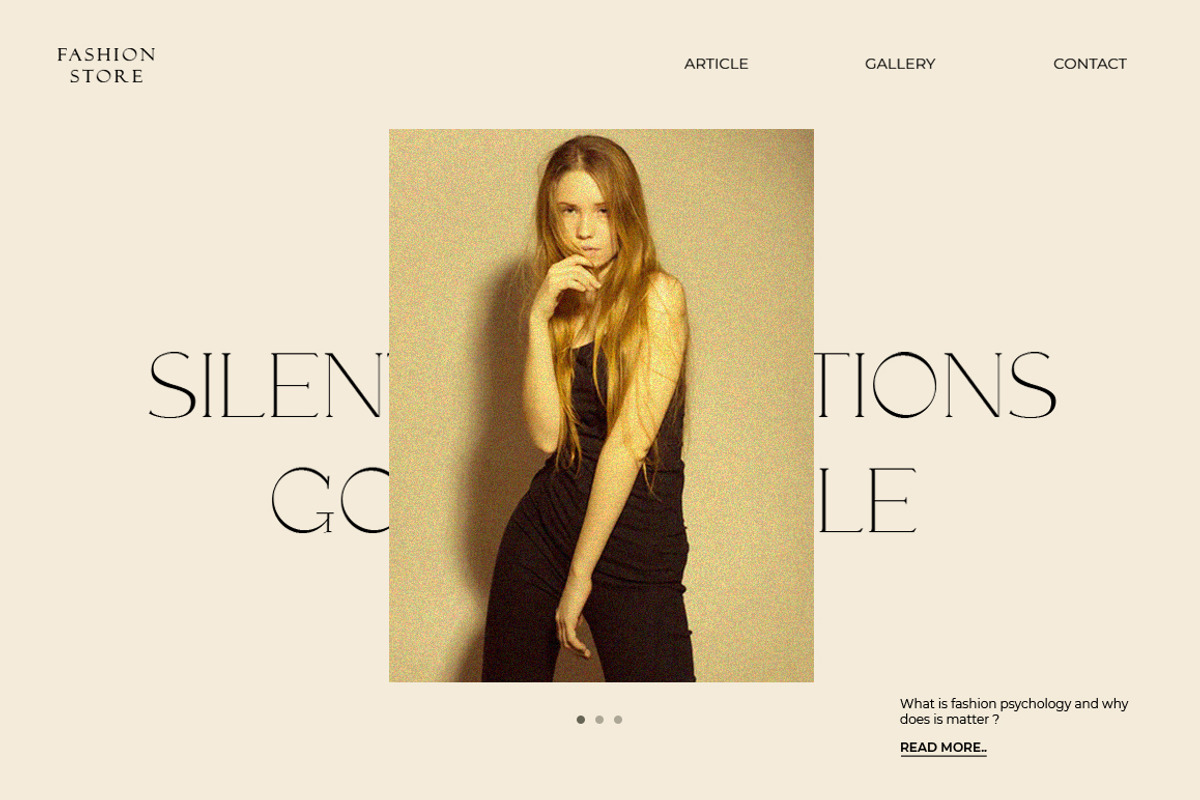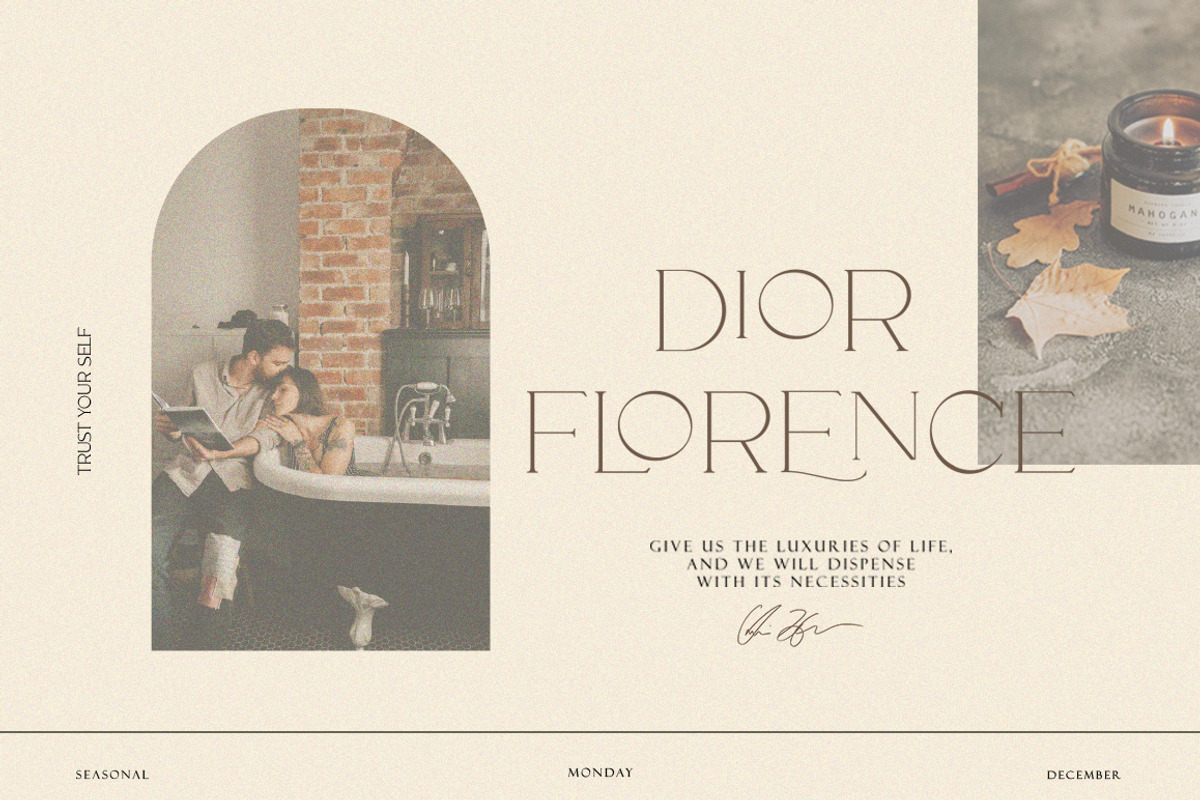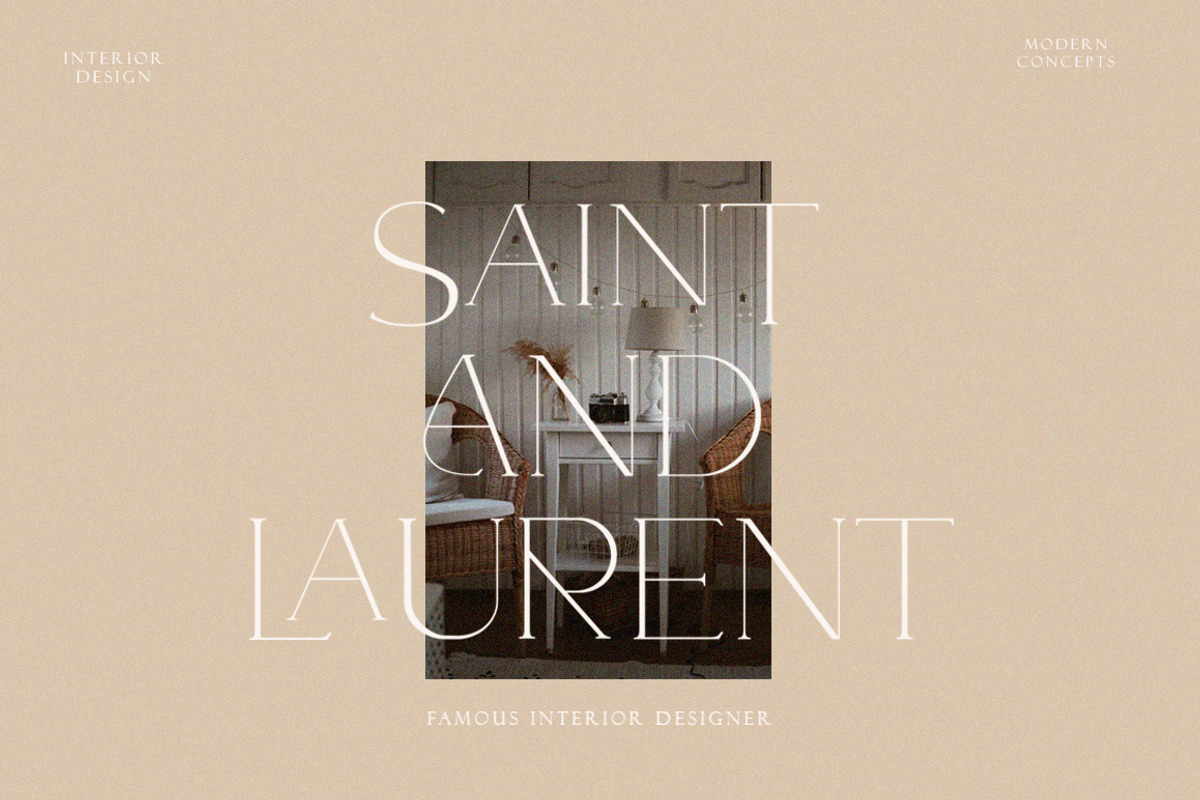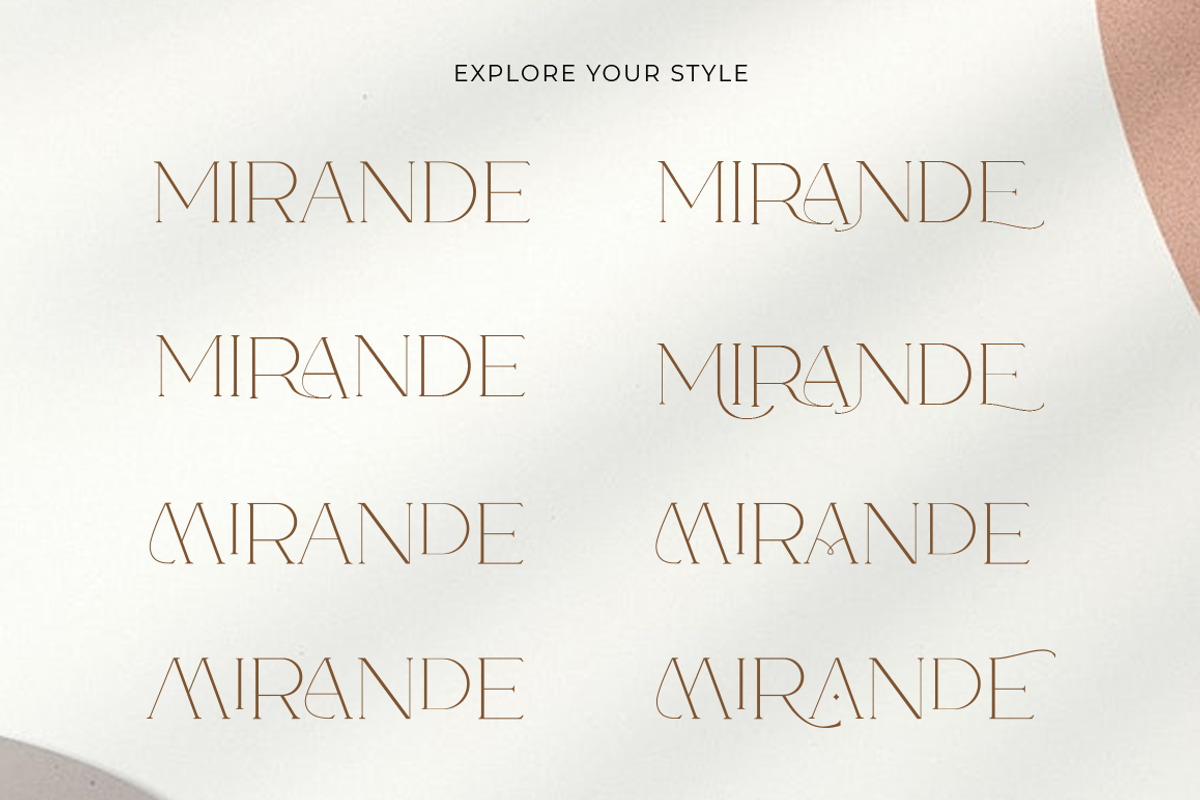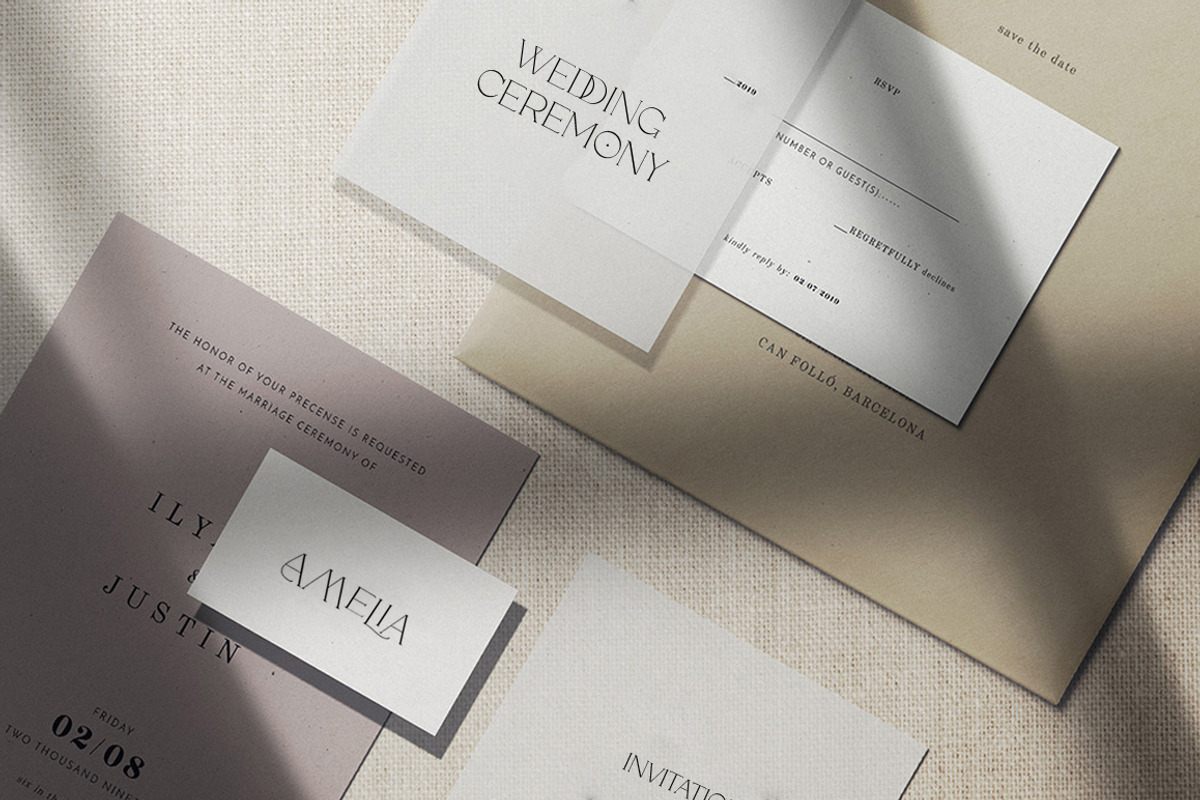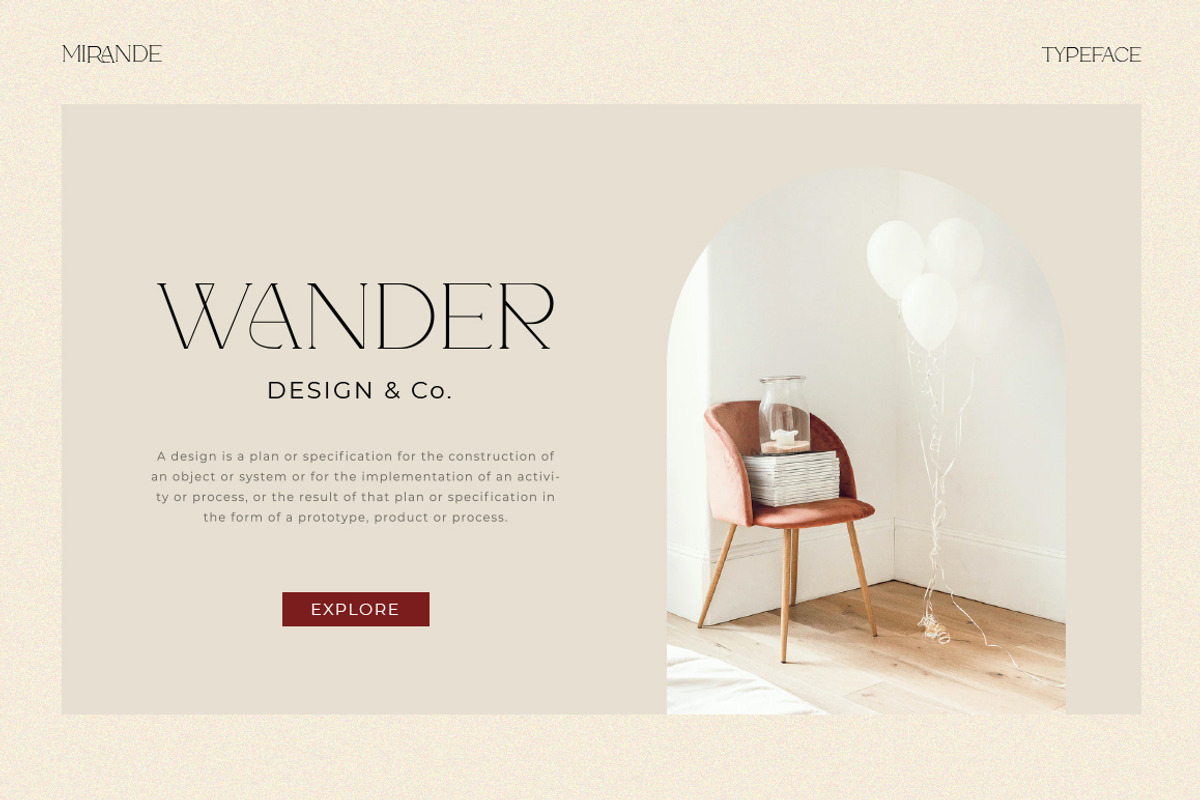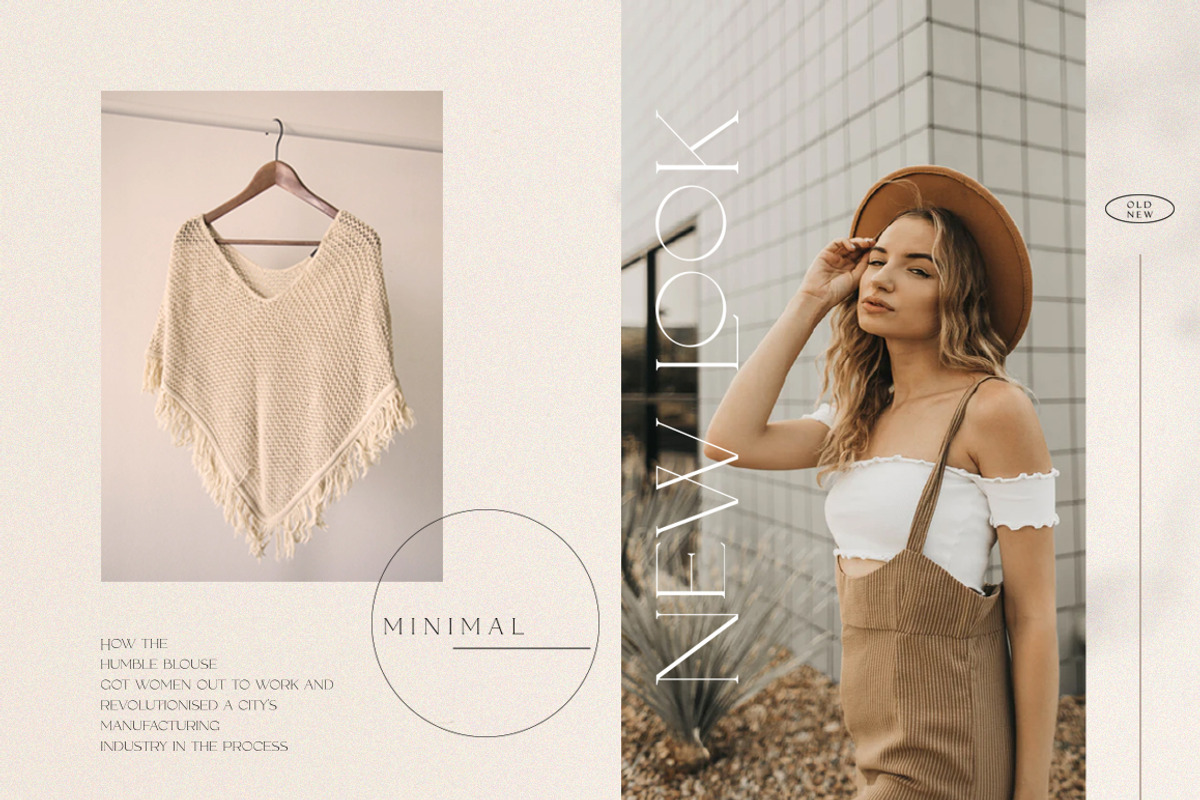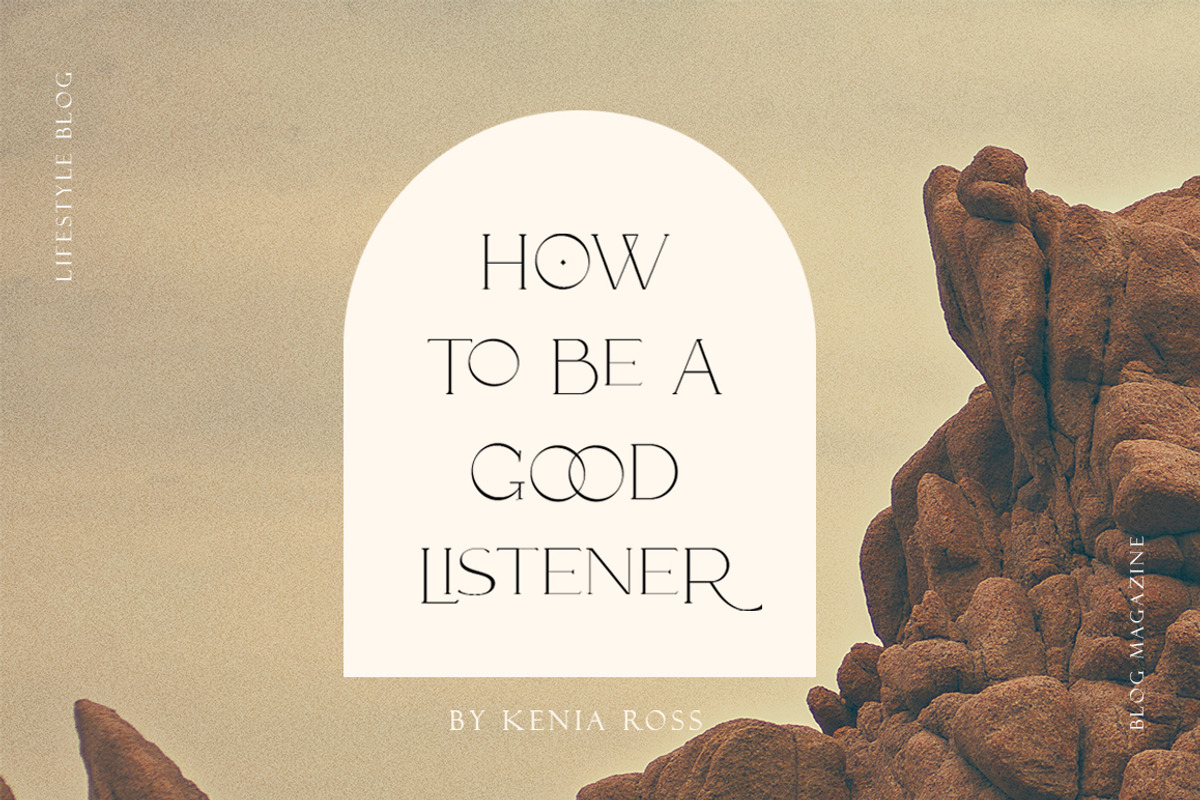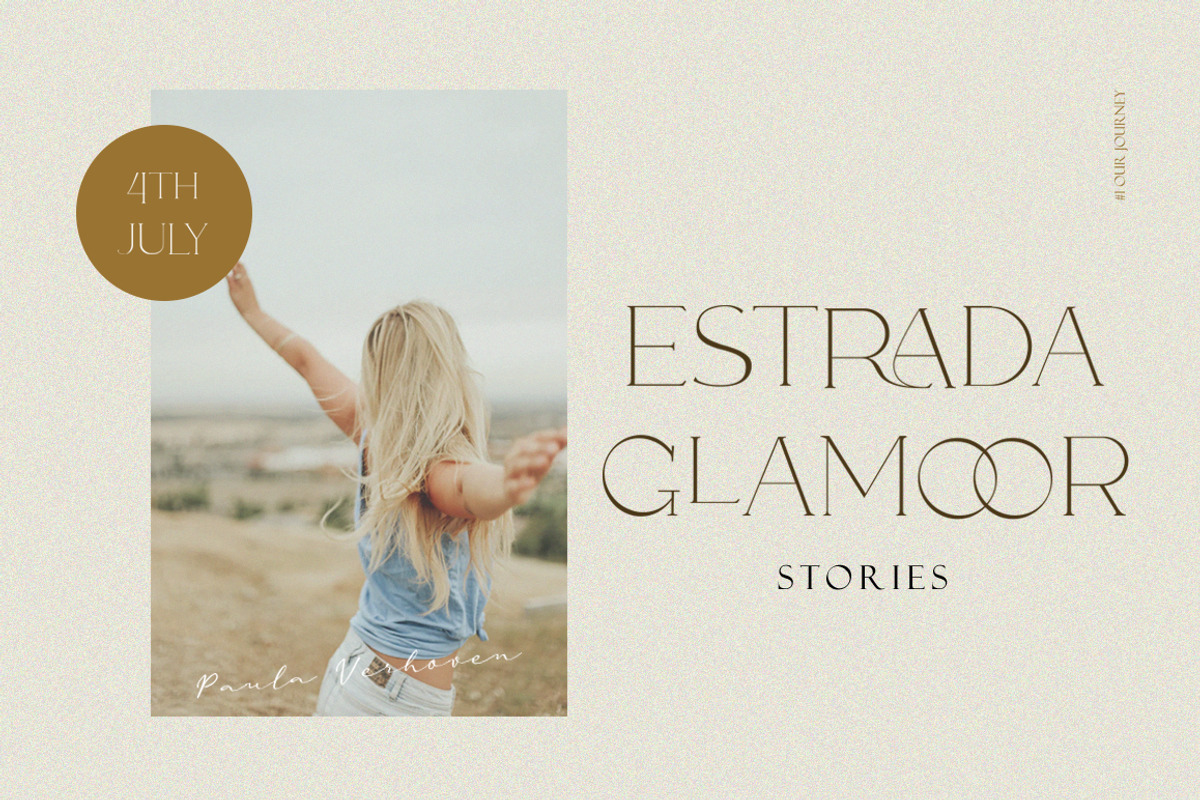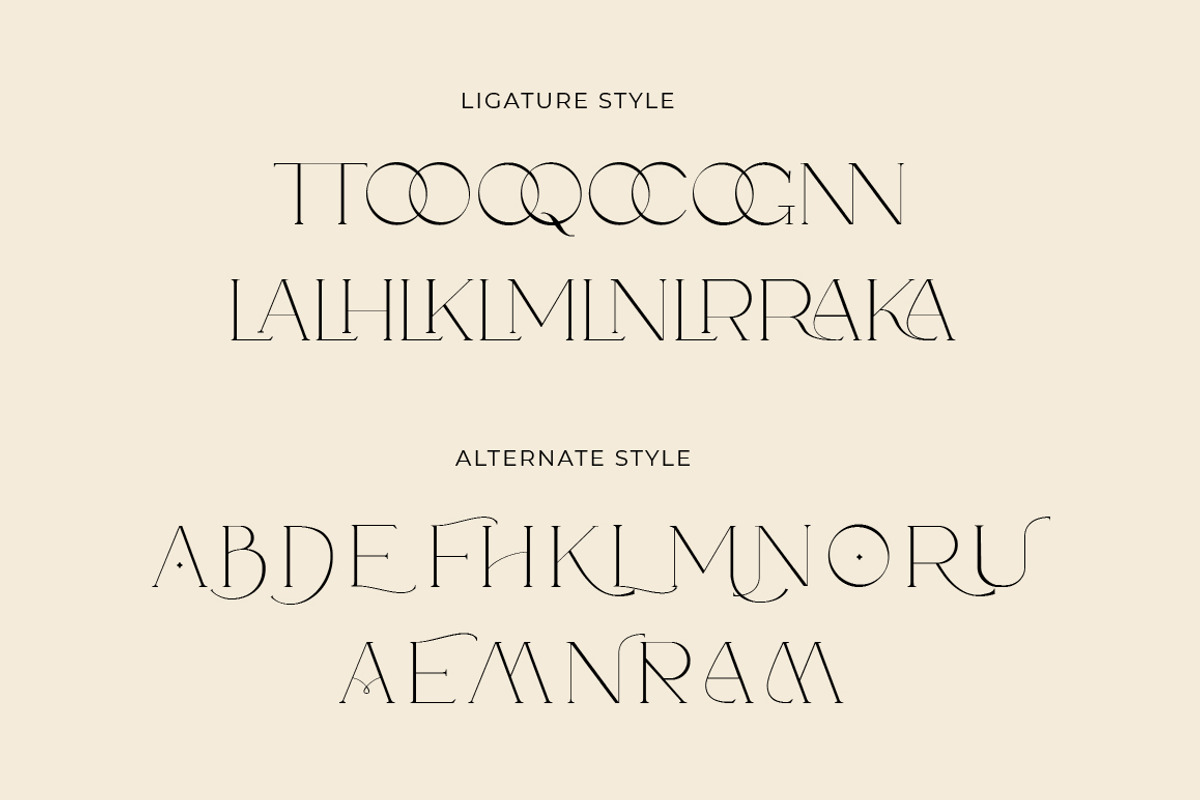
Mirande - Classic Ligature Serif
Mirande is a classic serif typeface with lots of style. A minimal contrast look that has been synonymous with fashion for decades. This font is both modern and nostalgic and works great for logos, mastheads and pull quotes. It pairs beautifully with a minimal sans serif or light script font.
- 2 Weights font
- Lowercase and Uppercase
- Stylistic Alternates & Ligatures